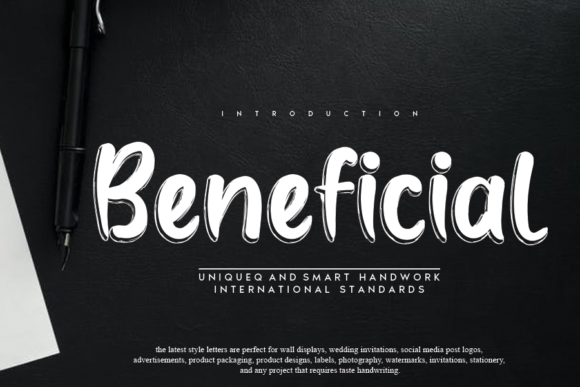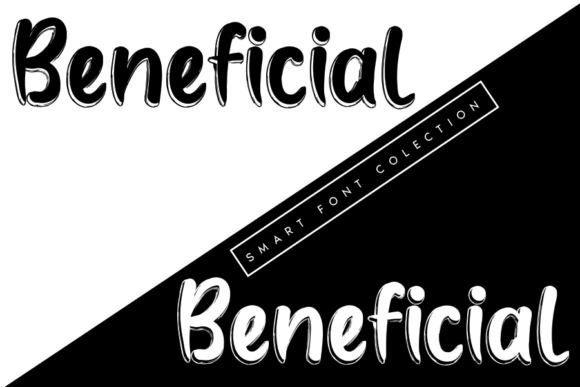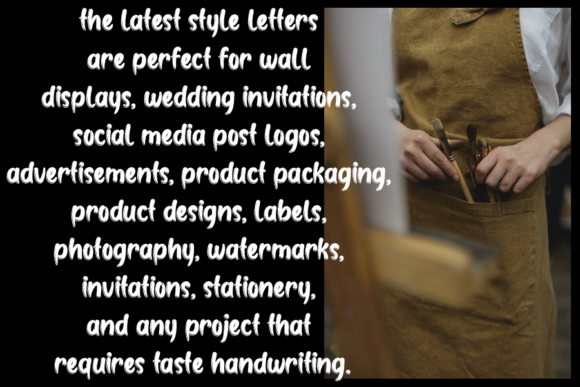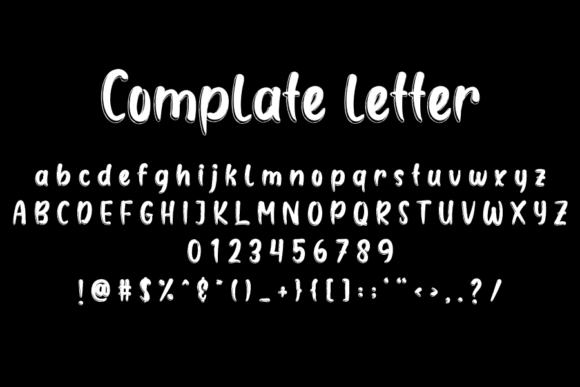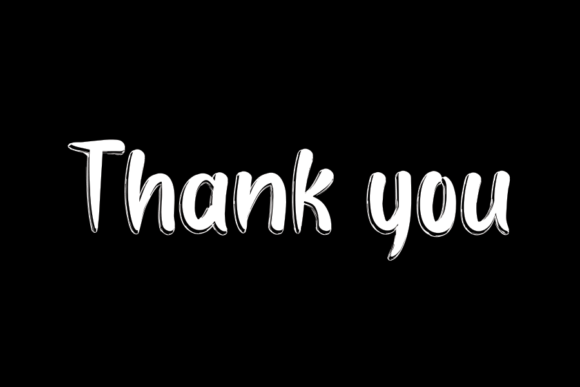
Beneficial Font
About Beneficial Font
Beneficial sounds like a fantastic and versatile handwritten font that can bring a touch of casual charm to various design projects. Its clean and slightly quirky appearance makes it suitable for a wide range of creative ideas. Here are some exciting ways to use Beneficial to enhance your designs:
1. Logos and Branding: Utilize Beneficial to create distinctive and memorable logos and branding elements that reflect a fun and laid-back personality.
2. Social Media Graphics: Design eye-catching and engaging social media posts, stories, and banners using Beneficial’s unique handwritten style.
3. Crafty DIY Projects: Incorporate Beneficial into various craft projects, such as handmade cards, scrapbooking, journaling, and DIY gifts.
4. Product Packaging: Use Beneficial to design product labels, tags, and packaging that will stand out and leave a lasting impression on customers.
5. Website Headings: Make your website stand out with fun and eye-catching headings and titles created using Beneficial’s casual flair.
6. Posters and Flyers: Design attention-grabbing posters and flyers for events, promotions, or announcements with Beneficial’s casual and unique handwritten font.
7. T-shirt Designs: Create cool and trendy t-shirt designs using Beneficial’s handwritten font for a relaxed and effortless look.
8. Party Invitations: Design playful and personalized party invitations that capture the spirit of celebration with Beneficial.
9. Book Covers: Use Beneficial to add a touch of casual charm to book covers, making them more inviting and relatable.
10. Craft Business Branding: If you run a craft business or handmade shop, incorporate Beneficial into your branding materials for a cohesive and creative look.
11. Greeting Cards: Create warm and friendly greeting cards with Beneficial’s casual and unique handwritten font.
12. Personal Blog: Enhance your personal blog with Beneficial’s brush pen-inspired font for a more casual and approachable tone.
13. Gift Tags: Design adorable gift tags using Beneficial to add a personal touch to your presents.
14. Quotes and Typography Art: Create typography art and printable quotes using Beneficial’s charming and relaxed style.
15. DIY Home Décor: Make personalized home décor items like wall art or framed prints with Beneficial’s casual handwritten font.
16. Stickers and Labels: Design fun and quirky stickers and labels using Beneficial for a playful and handcrafted vibe.
17. Recipe Cards: Make your recipe cards stand out with Beneficial’s handwritten font, adding a touch of personality to your kitchen.
18. Photo Captions: Use Beneficial to caption your photos on social media or in photo albums for a more casual and laid-back feel.
19. Handwritten Notes: Personalize handwritten notes and letters with Beneficial’s brush pen-inspired style, making them more heartfelt and special.
20. Custom Engravings: If you offer custom engraving services, use Beneficial’s unique font to add a personal touch to engraved items.
Beneficial’s casual and unique handwritten style makes it a versatile choice for a wide variety of design projects. Whether you’re working on branding, social media graphics, crafty DIY projects, or any other creative endeavor, Beneficial will add a touch of fun and charm, making your creations stand out and leave a lasting impression.